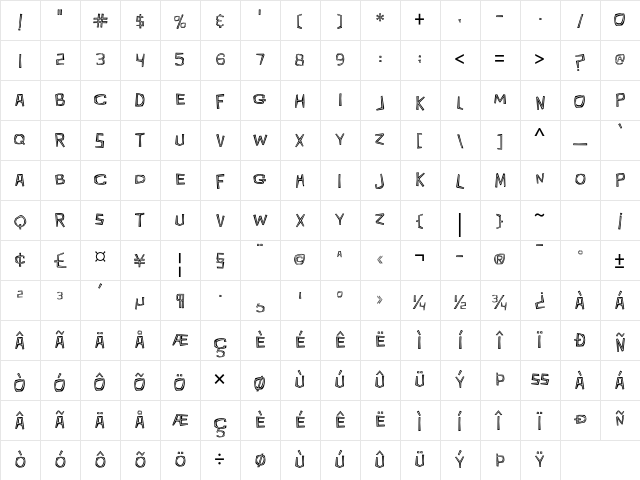
Volcano King ITC Std Regular
Designer: Stuart Sandler
Design Context for Volcano King ITC Std
Volcano King ITC Std is a composed and adaptable typeface that performs quietly and consistently across a wide range of design contexts.
Pro Tip: Use Volcano King ITC Std in both headline and body roles to test its range before committing to a single application.